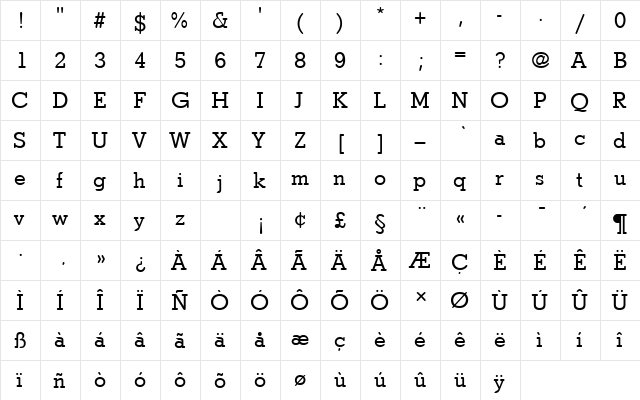
StymieTRegRo1 Regular Font Preview
StymieTRegRo1 Regular
Design Context for StymieTRegRo1 Typeface
StymieTRegRo1 offers clean, dependable letterforms without strong stylistic allegiance, making it a practical choice for designers who need flexibility.